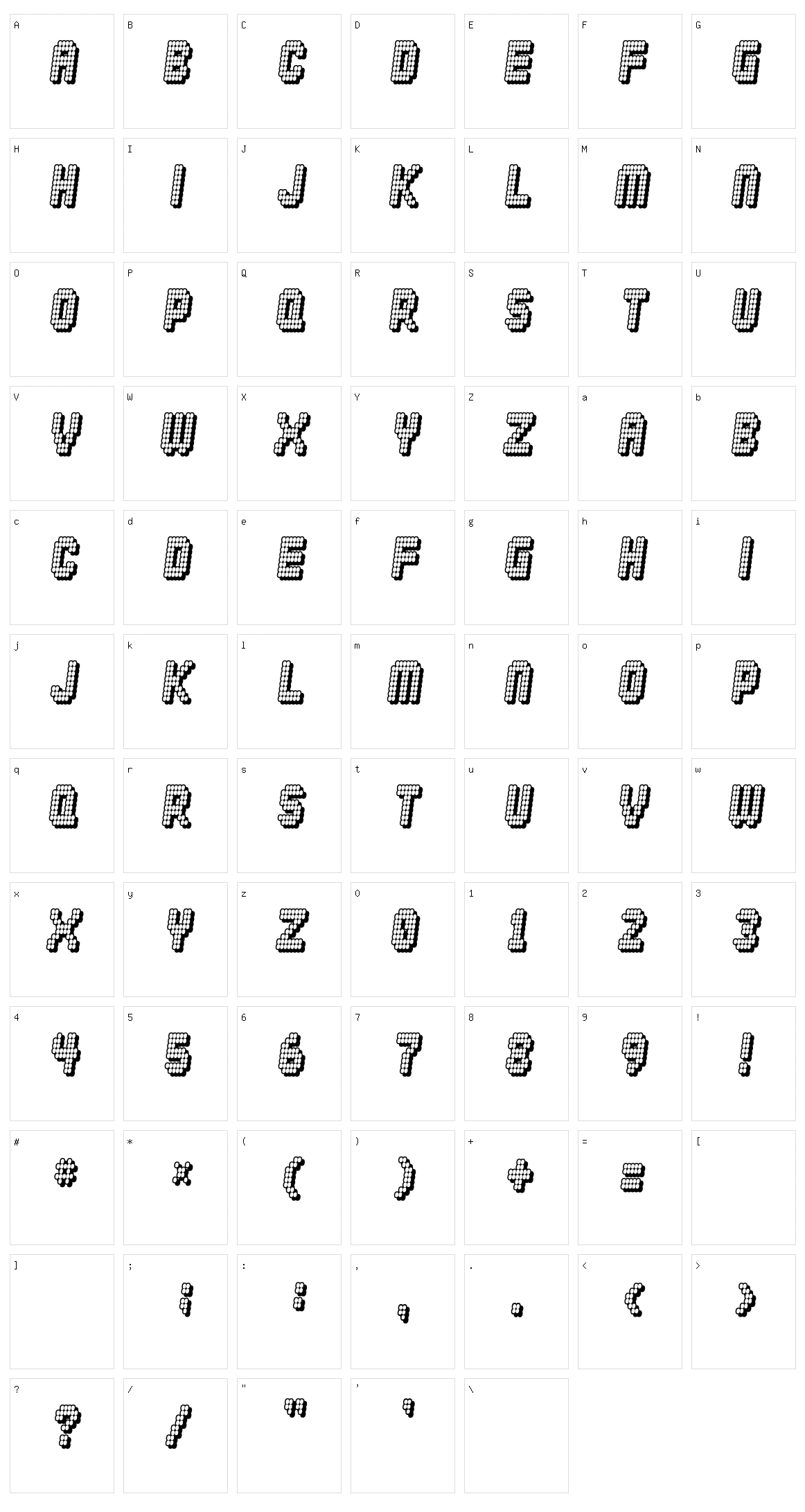
The free font Diskoteque is carefully designed by Pizzadude, showcasing a thoughtful balance of creativity and usability and falls under the Groovy font style. When you download the ZIP file, it contains only 12.62 KB of font files, making it lightweight and quick to download. Please review the license details below to understand permitted usage and distribution rights. If license information is not available, we recommend using this font for personal projects only or contacting the author directly for commercial usage permissions.